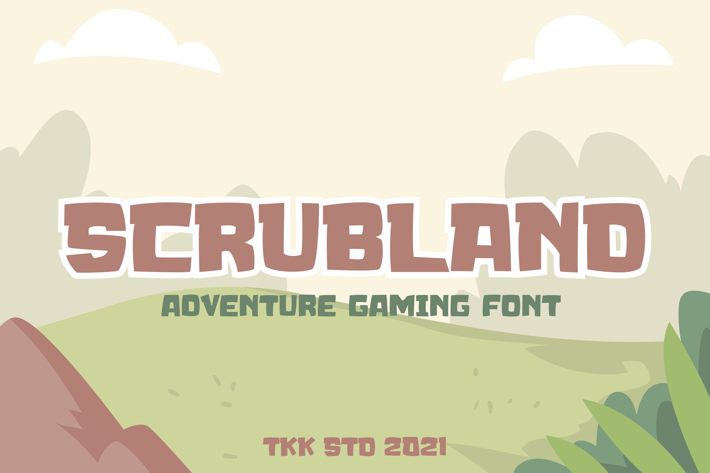
SCRUBLAND - Adventure Gaming Font
SCRUBLAND is a chunky, high-energy typeface built for fun, action, and endless excitement. This all-caps display font features bold geometric forms with strong vertical weight, blocky contours, and playful edges—perfect for projects that need to shout loud and clear. Its adventurous, pixel-ready style makes it a go-to choice for designs that want to feel game-ready, bold, and full of character.
SCRUBLAND was made for the world of motion and storytelling. With a style that fits arcade signage, gaming overlays, educational games, kids' posters, and action branding, this font adds instant visual punch to designs. The thick, readable forms are ideal for headlines, scoreboards, badges, packaging, and more.
Key Features:
Bold geometric display style with game-inspired edge
Sharp readability at large and small scales
Adventure vibes perfect for digital or print projects
All-caps alphabet with cohesive letter spacing
Built to evoke nostalgia, play, and excitement
Let the Games Begin!
SCRUBLAND isn't just a font—it's your next digital weapon. Whether you're crafting a 2D game UI, a classroom resource, or branding for a new line of adventure toys, this font makes sure your message arrives loud, fun, and unforgettable.